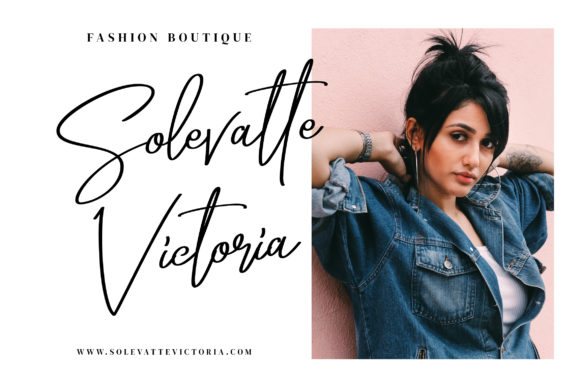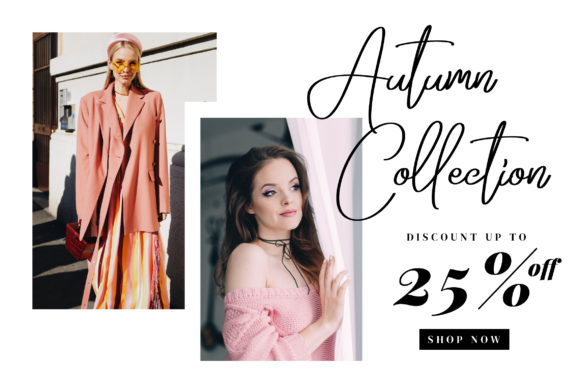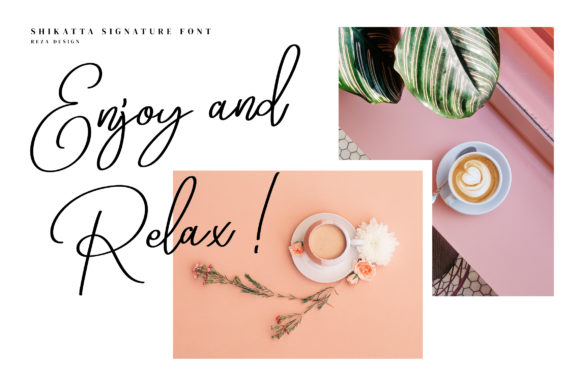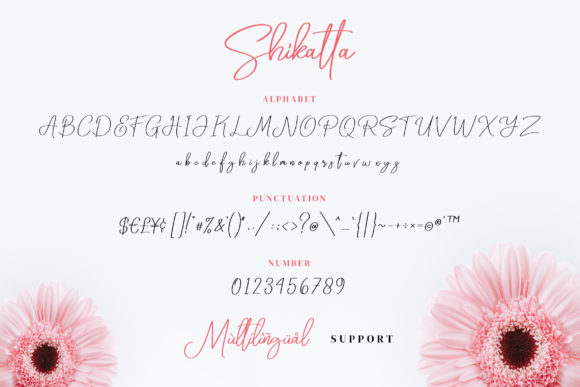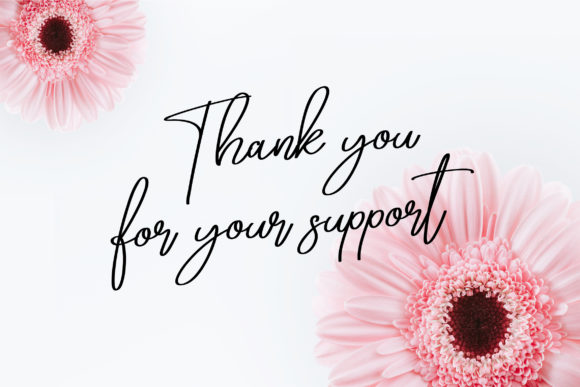
Introduction to Shikatta Font
As I sat at my desk, surrounded by scraps of paper, glue sticks, and glitter, I stumbled upon the perfect moment of creative clarity. A design idea had been simmering in the back of my mind, and with the right font, it could finally come to life. That’s when I discovered the enchanting Shikatta Font – a beautiful script font that exudes romance and elegance.
With its delicate curves and refined lines, the Shikatta Font is a treasure trove of design possibilities. Whether you’re working on a free download project or a high-quality design resource, this font is sure to add a touch of sophistication to your creative project. Its transparent background makes it versatile for use in various design contexts, from digital to print media.
For designers, the Shikatta Font is a valuable addition to their design arsenal. It’s a high-quality resource that can elevate even the simplest of designs, making it a must-have for any creative project.
Key Features of Shikatta Font
- High-quality design resource perfect for creative projects requiring unique typography.
- Features a clean and modern aesthetic, with a unique blend of geometric and organic elements.
- Designed with a high resolution of 300 DPI, ensuring crisp and clear typography in print and digital applications.
- Perfect for use in logos, branding materials, and other design elements where a distinctive font is required.
Honest Review: Shikatta Font
I recently stumbled upon the Shikatta Font while searching for a unique design resource for my creative project. I was blown away by the high quality of this font, which is available for free download. The transparent background adds a level of flexibility that makes it perfect for various design applications.
- ✨ Unique and modern design style that stands out from the crowd
- ✨ High-quality font that is crisp and clear even at larger sizes
- ⚠️ Limited language support, which may be a concern for designers working with non-English texts
- ⚠️ Not suitable for body text, as it can be quite distracting and difficult to read in large quantities
Overall, I’m impressed with the Shikatta Font and would definitely recommend it for creative projects that require a bold and eye-catching design element. Just be mindful of its limitations and use it accordingly.
Tips for Getting the Most Out of Shikatta Font
Experiment with different font sizes, colors, and styles to create visually appealing designs. Use the font in combination with other design elements, such as images, shapes, and icons, to create a cohesive and engaging design.
Shikatta Font is suitable for various creative projects, including graphic design, digital art, and print materials. It’s particularly useful for creating eye-catching headings, titles, and text overlays.
Alternatives to Shikatta Font
1. Ostrich Sans
Ostrich Sans is a sans-serif font perfect for creative projects requiring a clean and modern look. It’s available for free download and offers a transparent background, making it ideal for use on transparent or colored backgrounds.
When to use: For high-quality designs that need a touch of elegance and sophistication.
Comparison to Shikatta Font: Ostrich Sans is more modern and sleek compared to Shikatta Font, with a more streamlined appearance.
2. Playfair Display
Playfair Display is an elegant serif font ideal for design projects that require a touch of luxury and sophistication. It’s available for free download and can be used with a transparent background.
When to use: For high-end creative projects that need a sense of refinement and class.
Comparison to Shikatta Font: Playfair Display is more luxurious and refined compared to Shikatta Font, with a more ornate appearance.
Lato is a clean and modern sans-serif font perfect for design projects that require a clear and legible font. It’s available for free download and can be used with a transparent background.
When to use: For high-quality designs that need a clean and modern look.
Comparison to Shikatta Font: Lato is more modern and clean compared to Shikatta Font, with a more minimalist appearance.